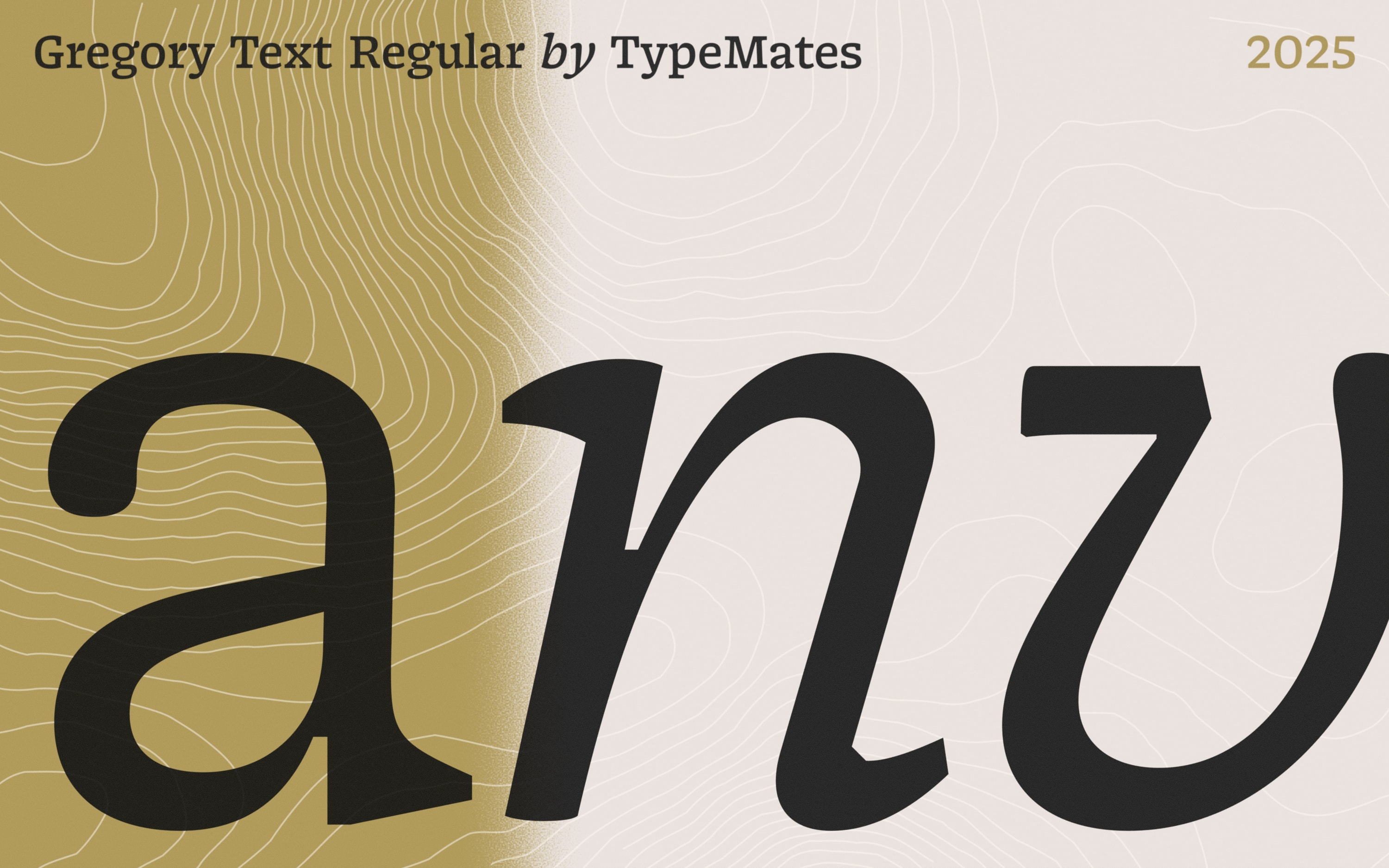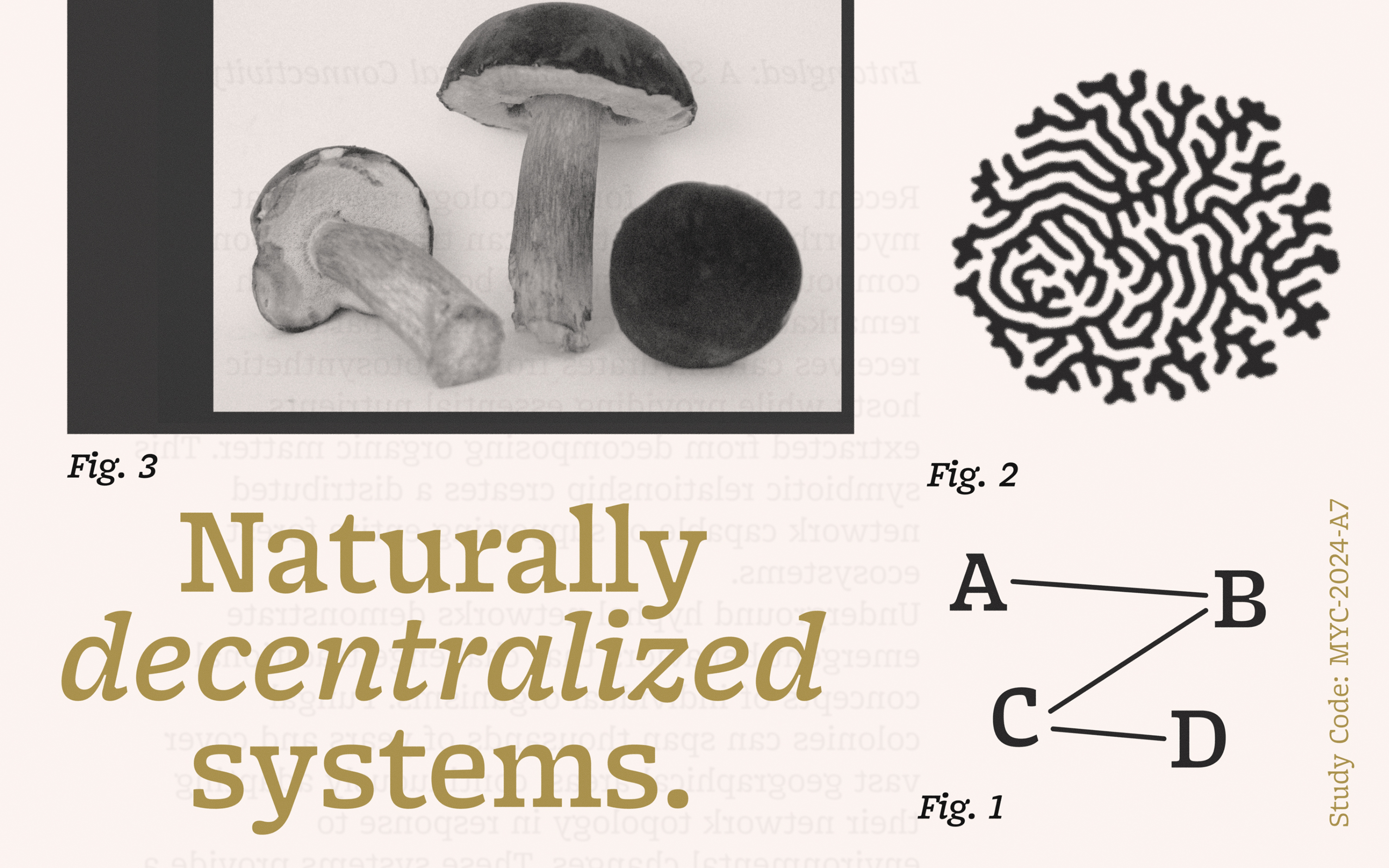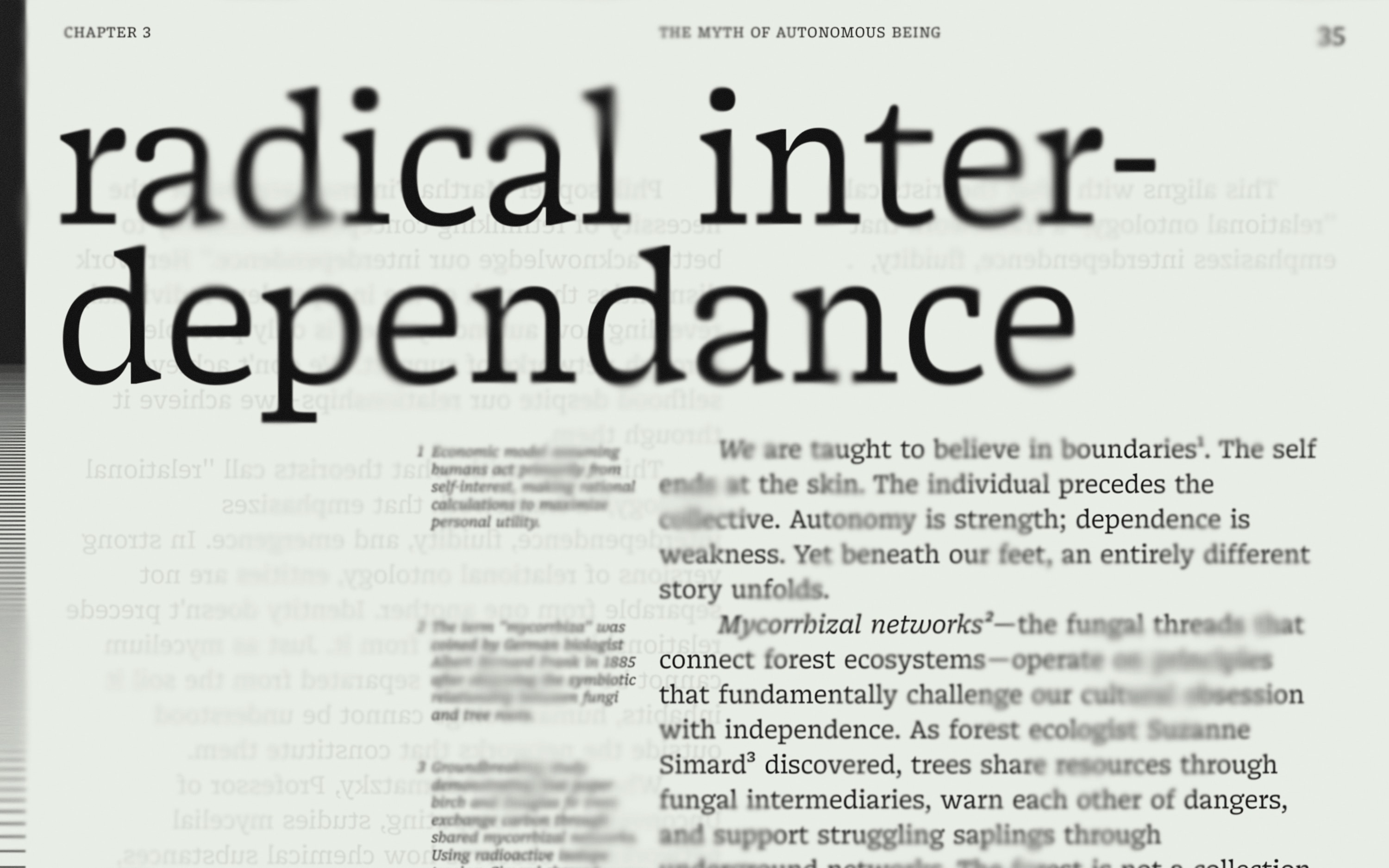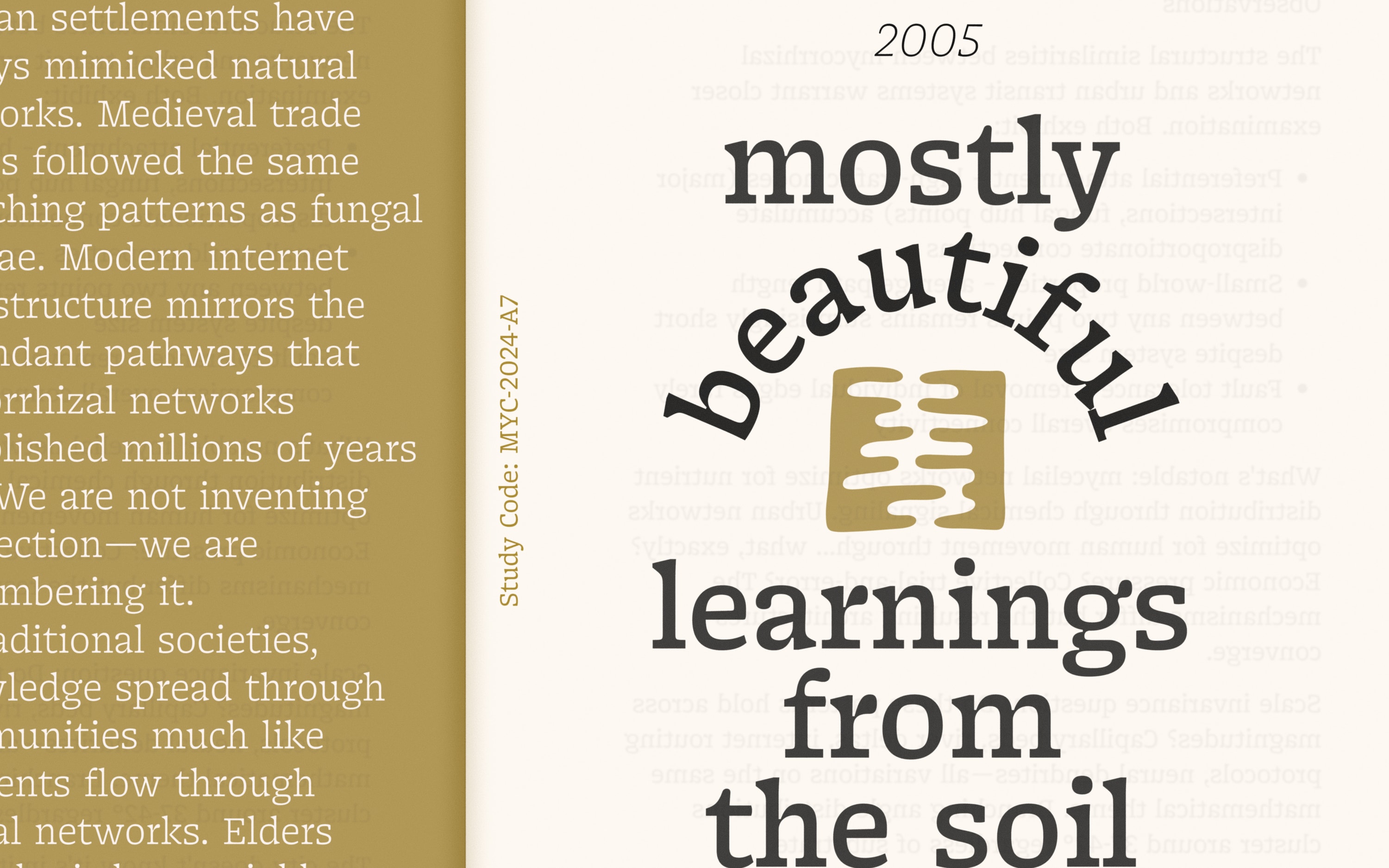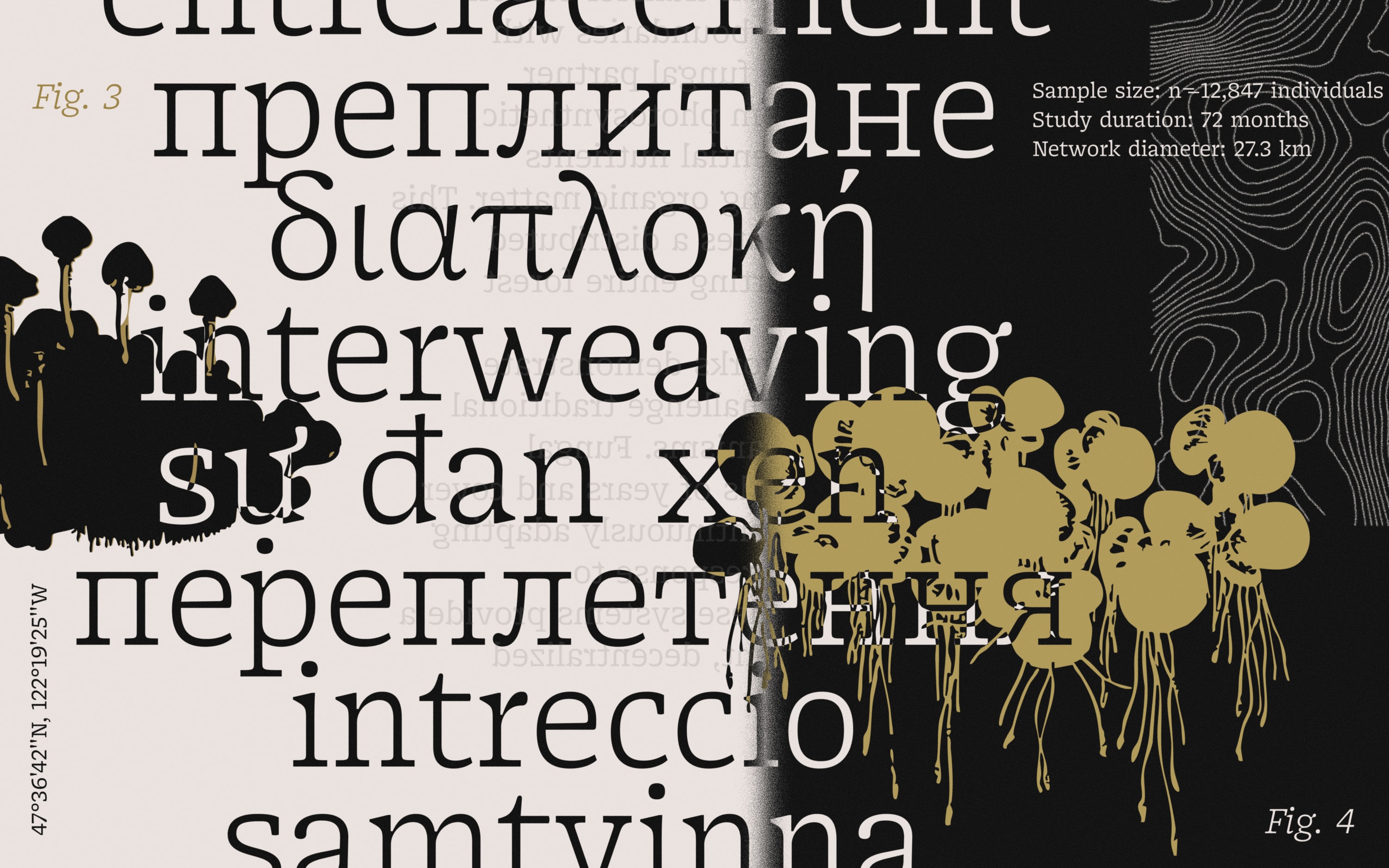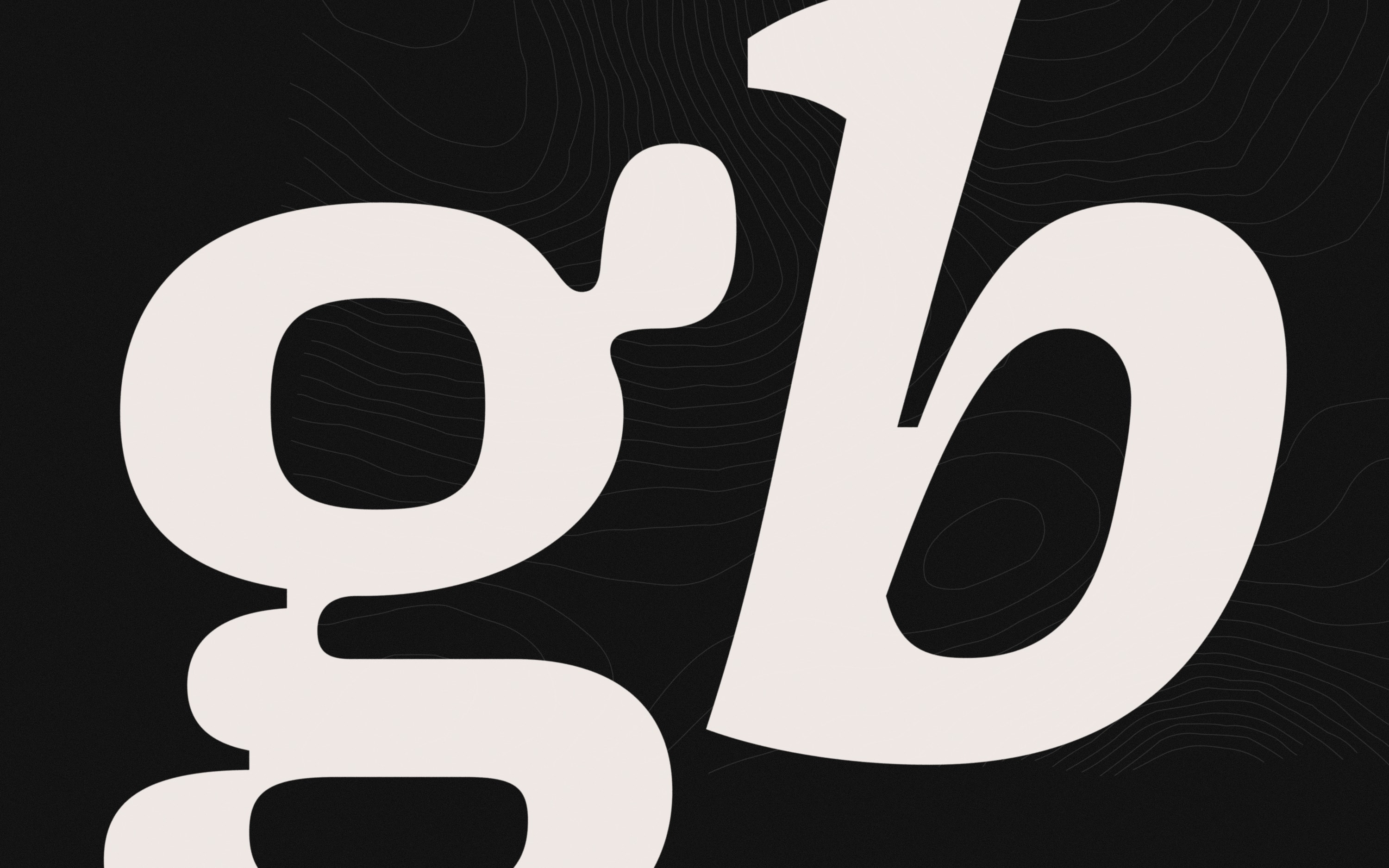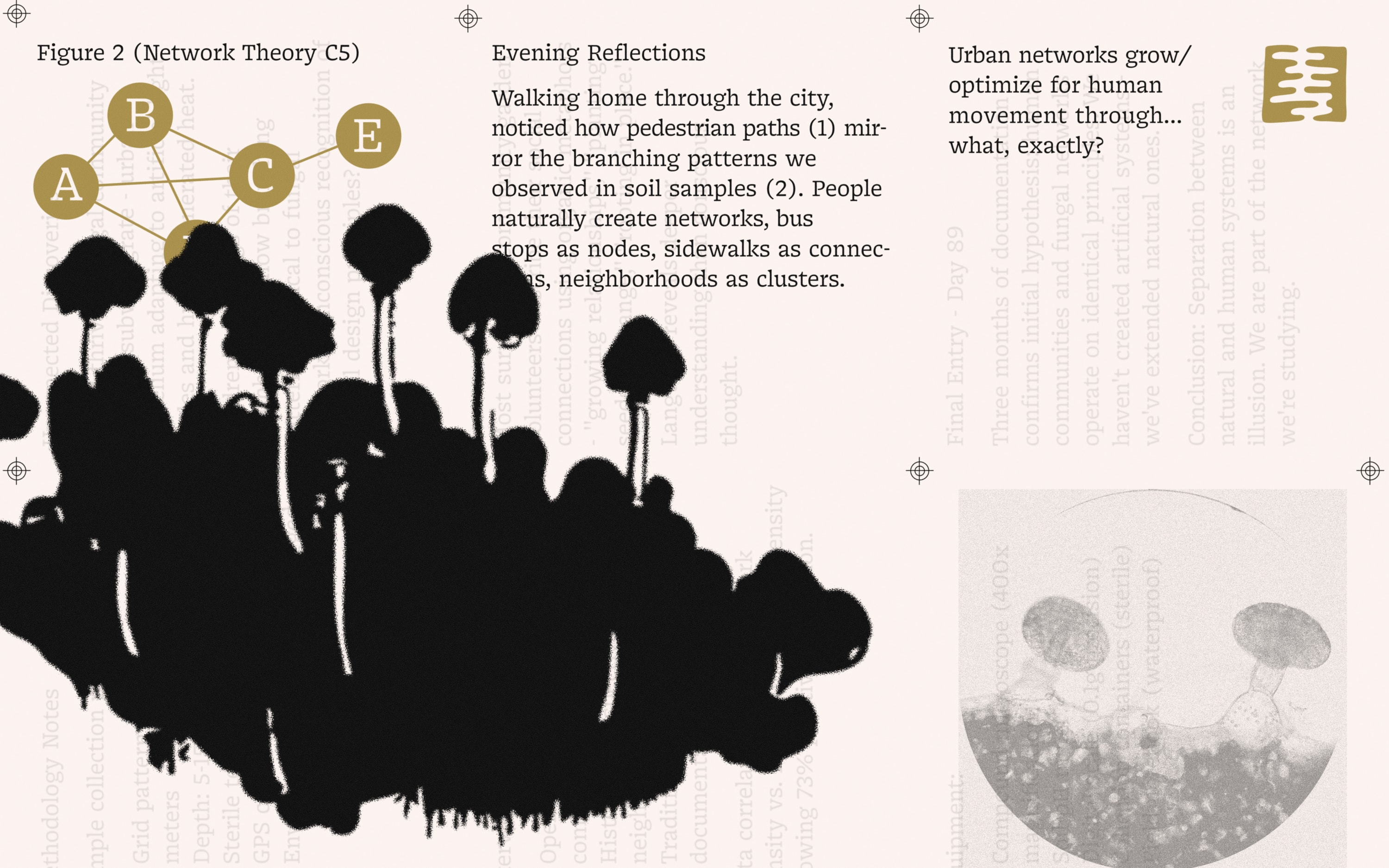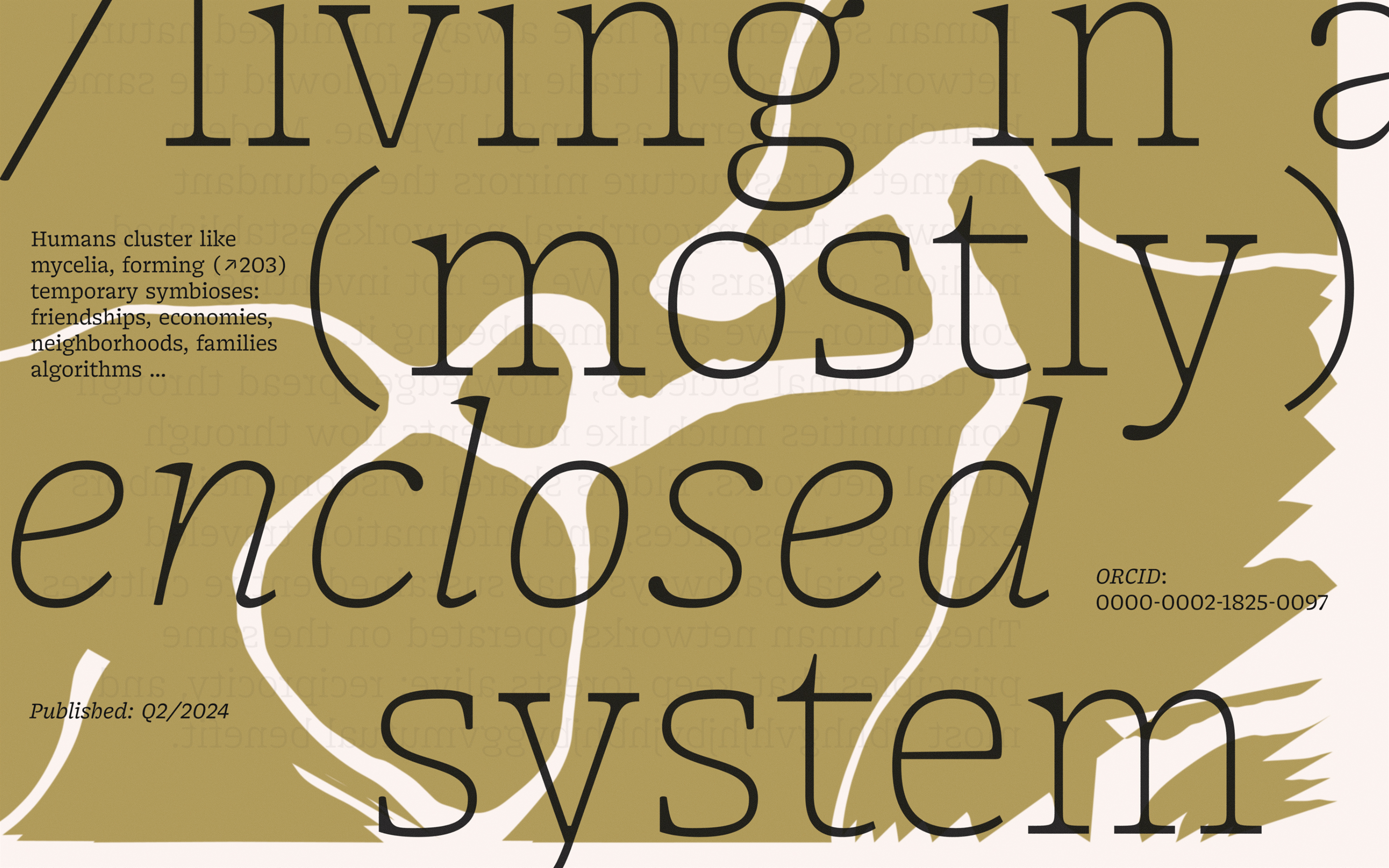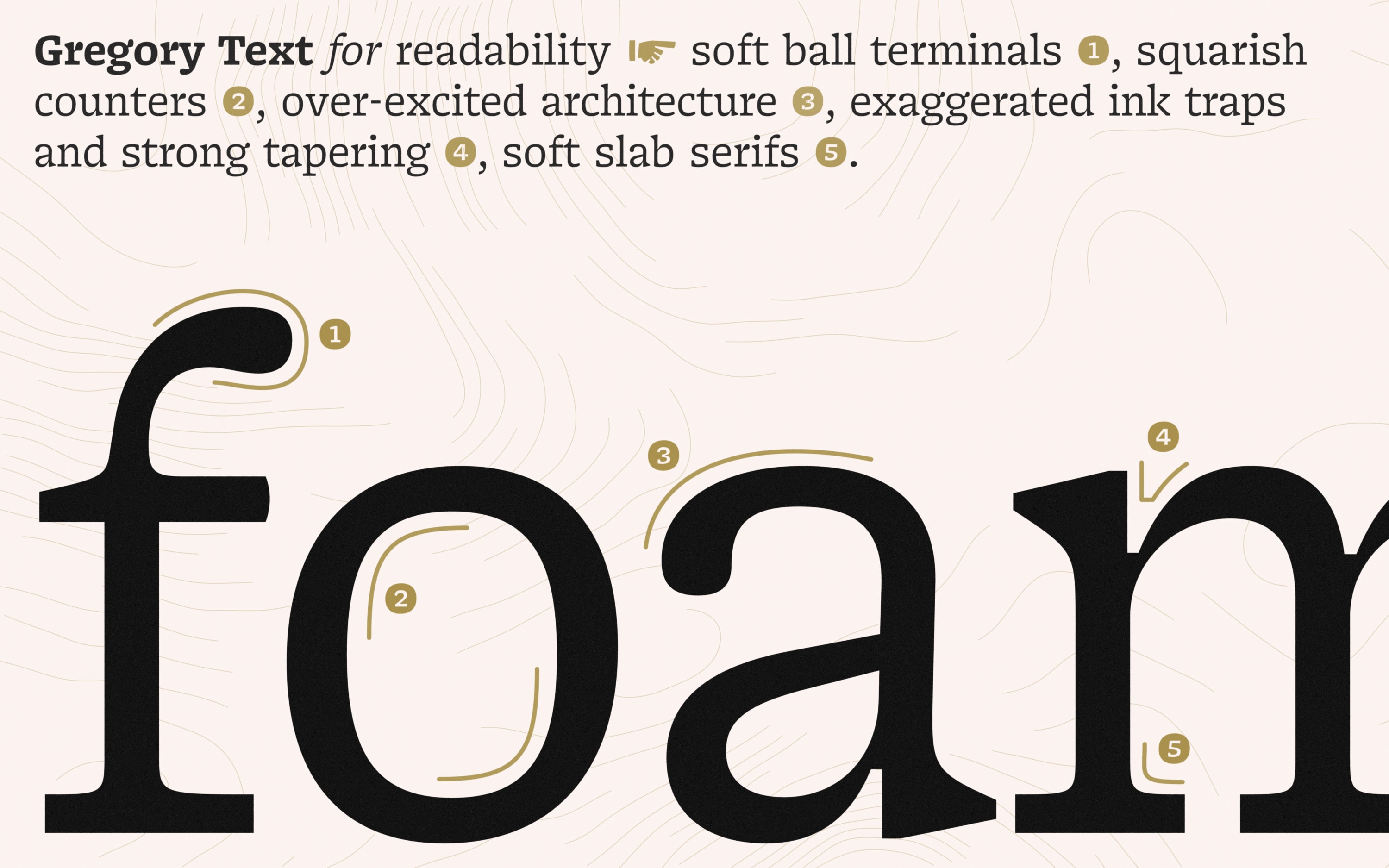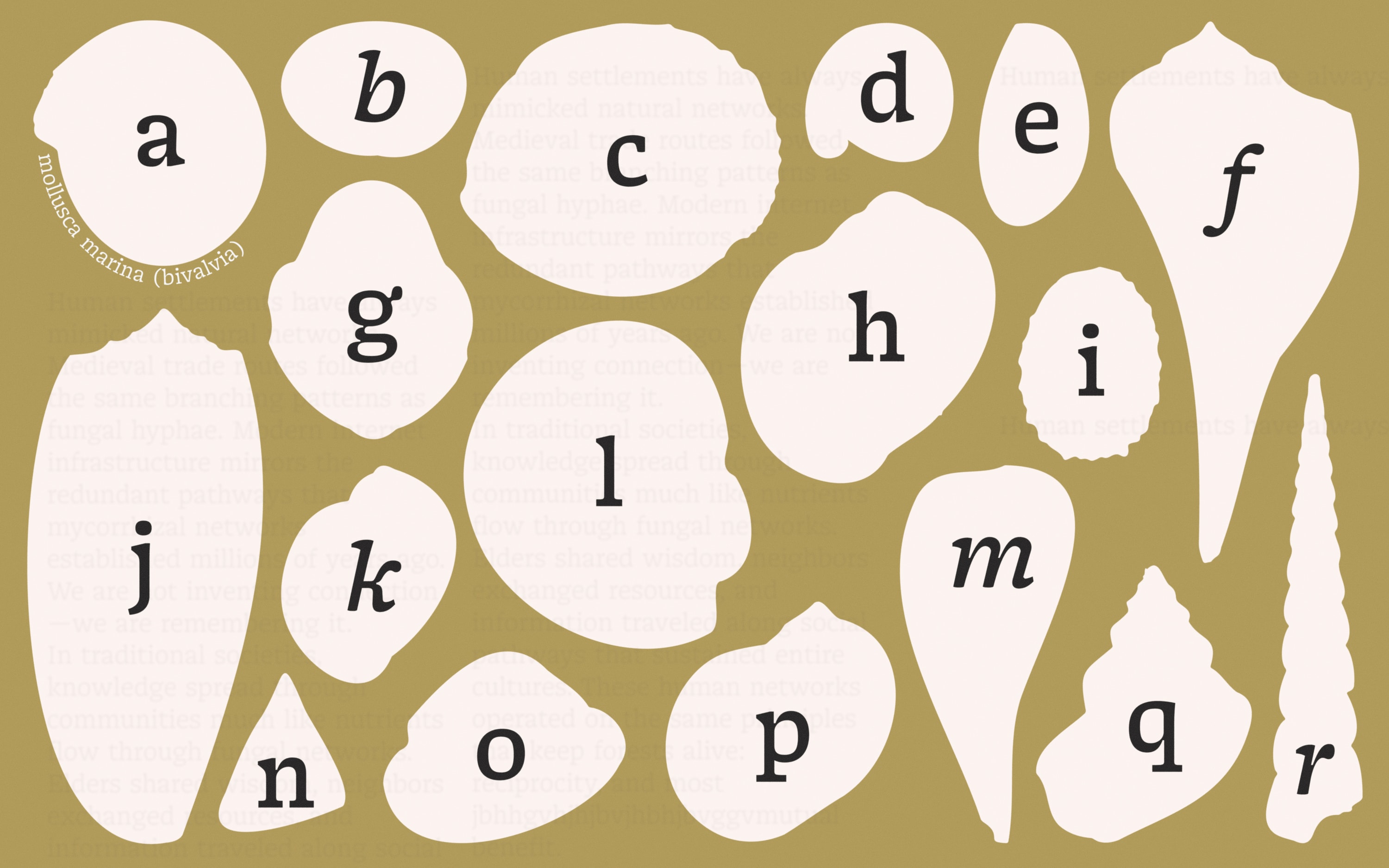
New typeface: Gregory Text
The Gregory trio is complete. Meet a new contemporary bookish typeface, full of charming little quirks, in our joint release with TypeMates
With moderate stroke contrast and unusual shapes, Gregory Text reinterprets the historical aesthetic of early Slab Serif metal types to fit today’s demands. The result is a typography that prefers home touches and obvious ink-traps to ‘rational’ geometry. The family’s warmth is reflected in its chunky, softly-curved serifs and square-ish, doughy countershapes; and even in its more-delicate lighter weights.
Exaggerating details, sharpening edges and pushing and prodding at counterforms for micro-sizes, Gregory Text draws on W. A. Dwiggings’ M-formula M-Formula or Marionette Formula is based on W. A. Dwiggings’ experiences with carved marionette faces. He noted that those faces with angular planes were more expressive from the audience’s view, and he called for similar angularity in the edges of letter strokes. This gives rise to Gregory Text’s quirky looks and excellent legibility: it can comfortably carry complex texts with a cosy vibe. Crafted for flavourful small text, it’s equally effective at larger scales — the robust detailing standing out in headlines.
Gregory Text’s matching italics are spirited, sharply-curved shapes that create a stable, but lively texture: reinforcing its delightful appeal for micro-text and Baroque top-heaviness. Functional and approachable, this is a workhorse for serious and informal typography: whatever you write, Gregory makes it charming.
With Greek and Cyrillics, Gregory Text gets along easily in 270 languages, including Vietnamese. Gregory Text is carefully engineered with a range of OpenType Features for ambitious typography, offering a set of relaxed oldstyle figures, language specific localisation and delightful symbols and emojis. Designed by Jakob Runge, with Cyrillics by Seryozha Rasskazov and Greek by George Triantafyllakos. Consulting by Krista Radoeva. Helping hands of Yaprak Buse and Natalie Rauch